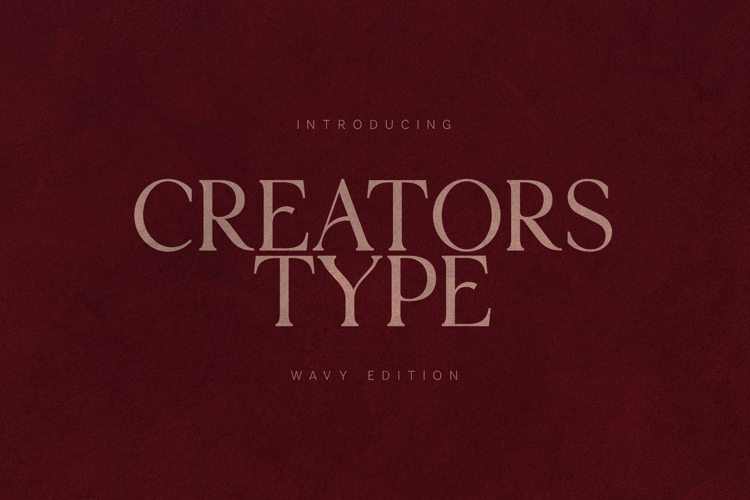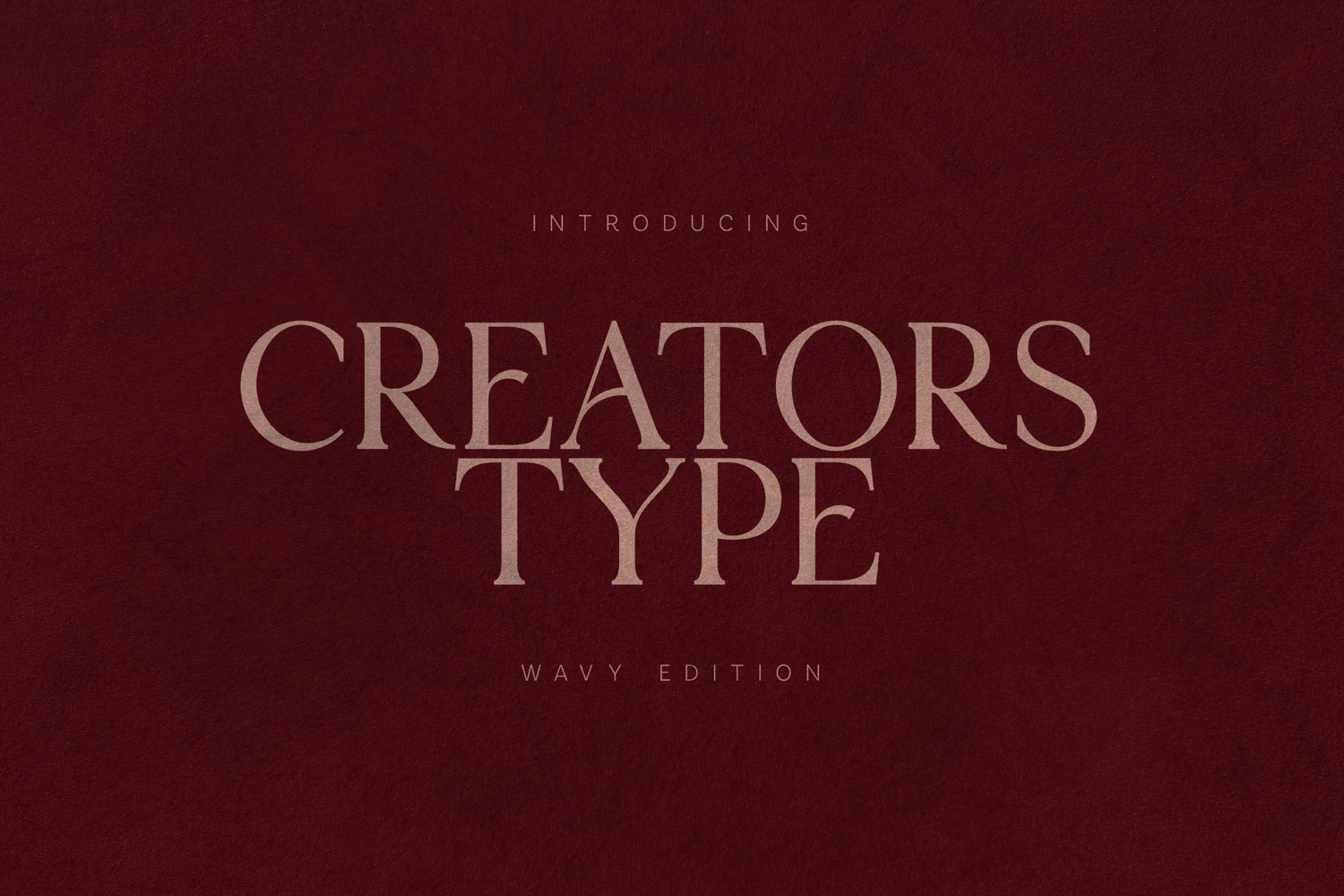
Creators Type Wavy Serif Font
Creators Type is a modern serif font designed for designers who value emotion, clarity, and character.
The Wavy Edition introduces a subtle organic flow to the letterforms, adding warmth and personality without sacrificing readability.
Carefully crafted curves, balanced proportions, and soft serifs make this font ideal for editorial design, branding, packaging, posters, and creative storytelling. The wavy details are intentionally restrained—felt rather than seen—giving your typography a human, expressive tone.
Creators Type supports a wide range of languages and includes uppercase, lowercase, numerals, punctuation, and extended Latin characters, making it suitable for both professional and creative projects.
Whether you’re working on a magazine layout, a brand identity, or artistic visuals, Creators Type delivers elegance with a contemporary edge.